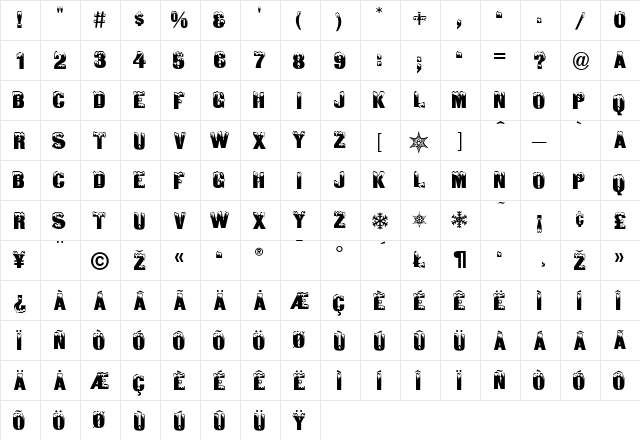
IglooSolid Regular
| Foundry | Digitized by Dan X. Solo. Software \ by Dover Publications, Inc |
Design Context for IglooSolid Typeface
IglooSolid is a composed and adaptable typeface that performs quietly and consistently across a wide range of design contexts.